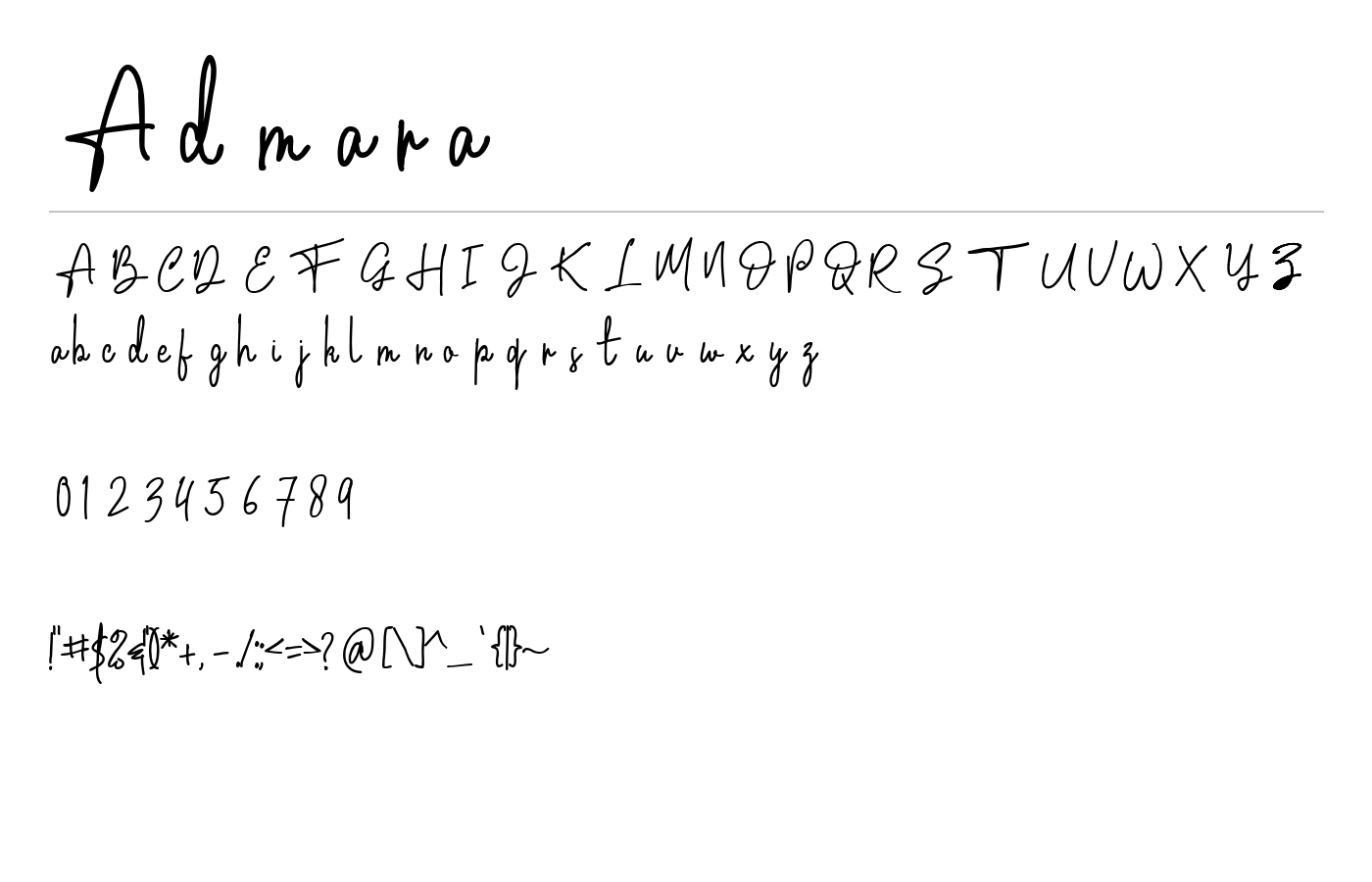
Admara is a delicate, hand-drawn script font with a light, airy feel and playful, slightly quirky letterforms. Its thin strokes and irregular shapes create a casual yet elegant style perfect for personal or creative projects, such as invitations, branding, or social media graphics. This font works well when you want to add a warm, approachable touch while maintaining a modern, handwritten charm.
Admara Font
About Admara Font
| Font family | Admara Font |
| Designer | Faras Dina |